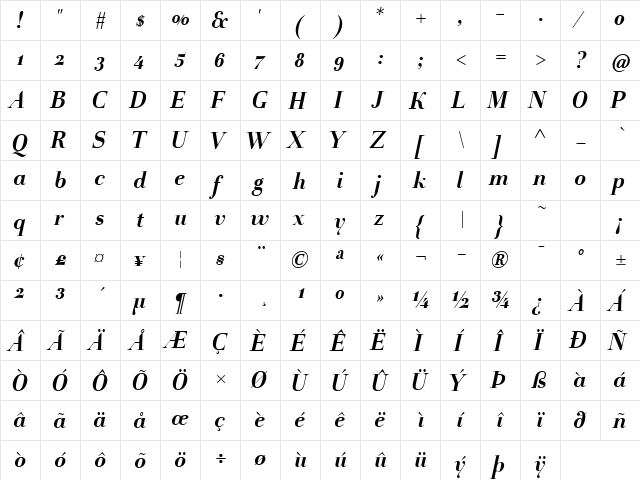
Holmen-BoldItalic Regular
| Foundry | FSI FontShop International GmbH |
| Designer | Per Jorgensen |
Design Context for Holmen-BoldItalic Typeface
Holmen-BoldItalic offers clean, dependable letterforms without strong stylistic allegiance, making it a practical choice for designers who need flexibility. Its italic angle brings a sense of urgency and motion to the letterforms. Its bold stroke weight gives it real presence on the page.
Pro Tip: Use Holmen-BoldItalic for emphasis, pull quotes, and subheadings where its slanted energy can add rhythm to the layout.